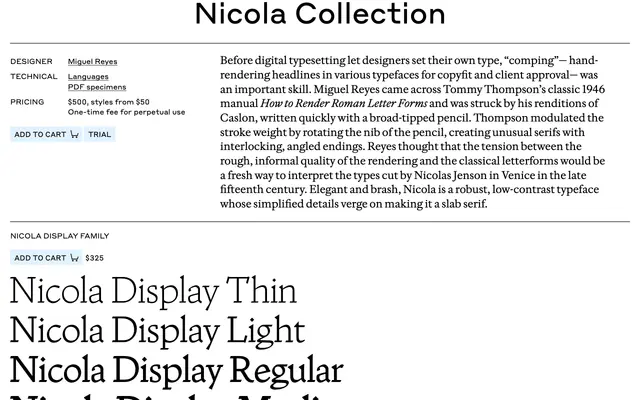
Nicola
Commercial Type · Miguel Reyes
A robust, low-contrast Venetian serif from Miguel Reyes that channels Tommy Thompson's pencil renderings of Caslon back through the types of Nicolas Jenson.
A two-width family from Miguel Reyes that interprets the late fifteenth-century types of Nicolas Jenson through the hand-rendered Caslon studies in Tommy Thompson's 1946 manual How to Render Roman Letter Forms. Nicola Display covers fourteen styles from Thin to Black with matching italics, and Nicola adds a text companion with Regular, Regular No 2, Medium and Bold plus italics, giving editorial and identity systems an elegant but brash voice with simplified, almost slab-leaning details.
Commercial Type present Nicola as a robust, low-contrast take on Nicolas Jenson's late fifteenth-century Venetian types, filtered through Tommy Thompson's broad-tipped pencil renderings of Caslon from his 1946 manual How to Render Roman Letter Forms. The simplified details verge on slab serif.